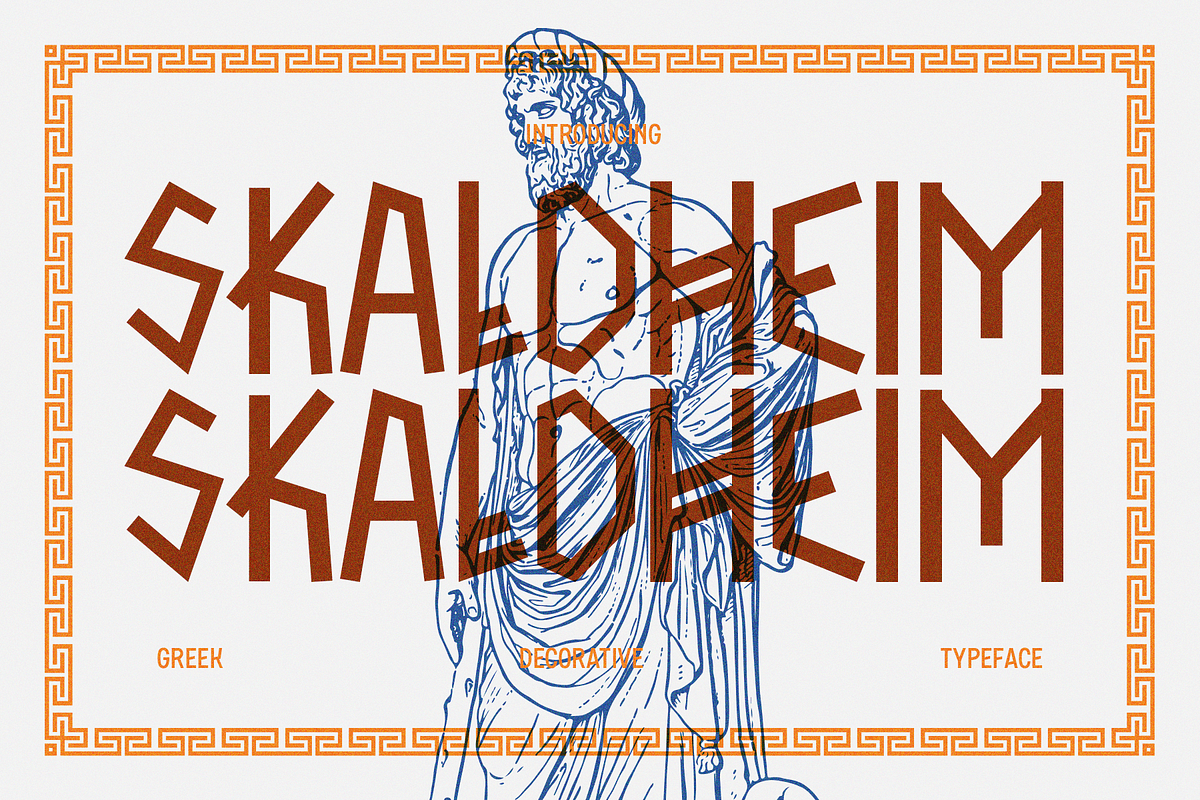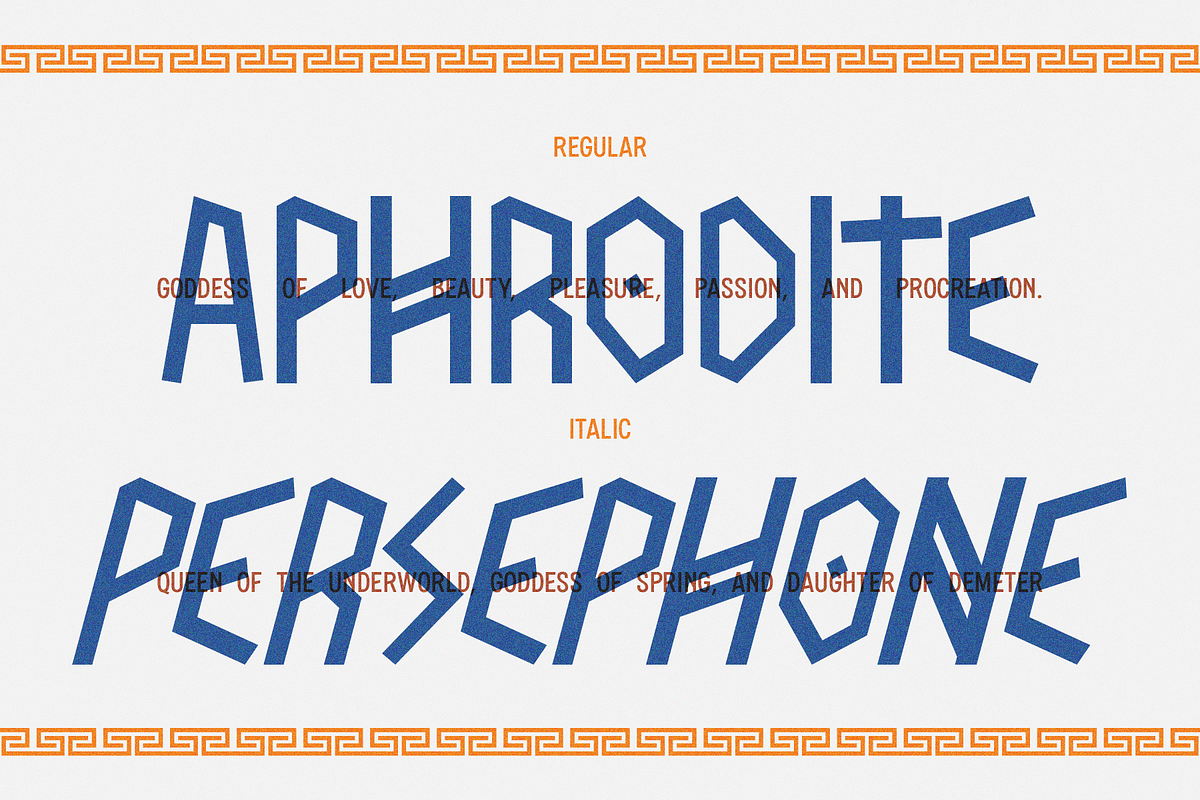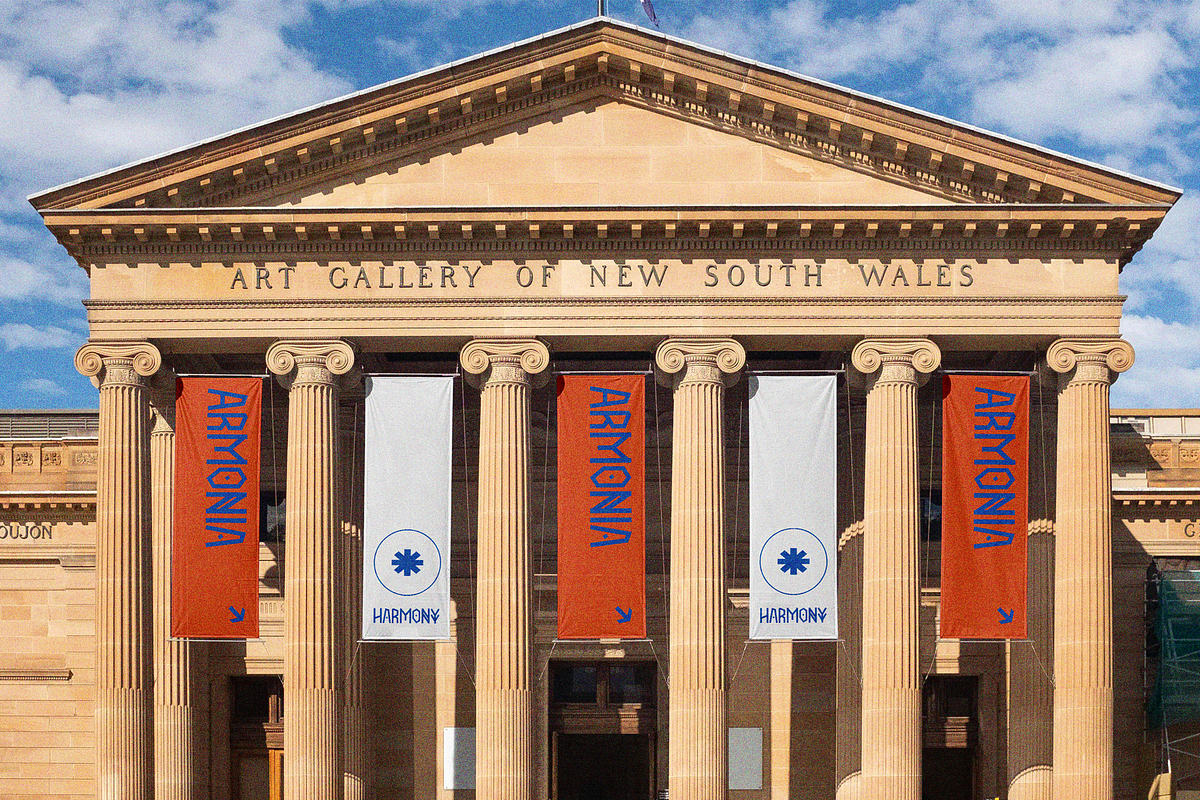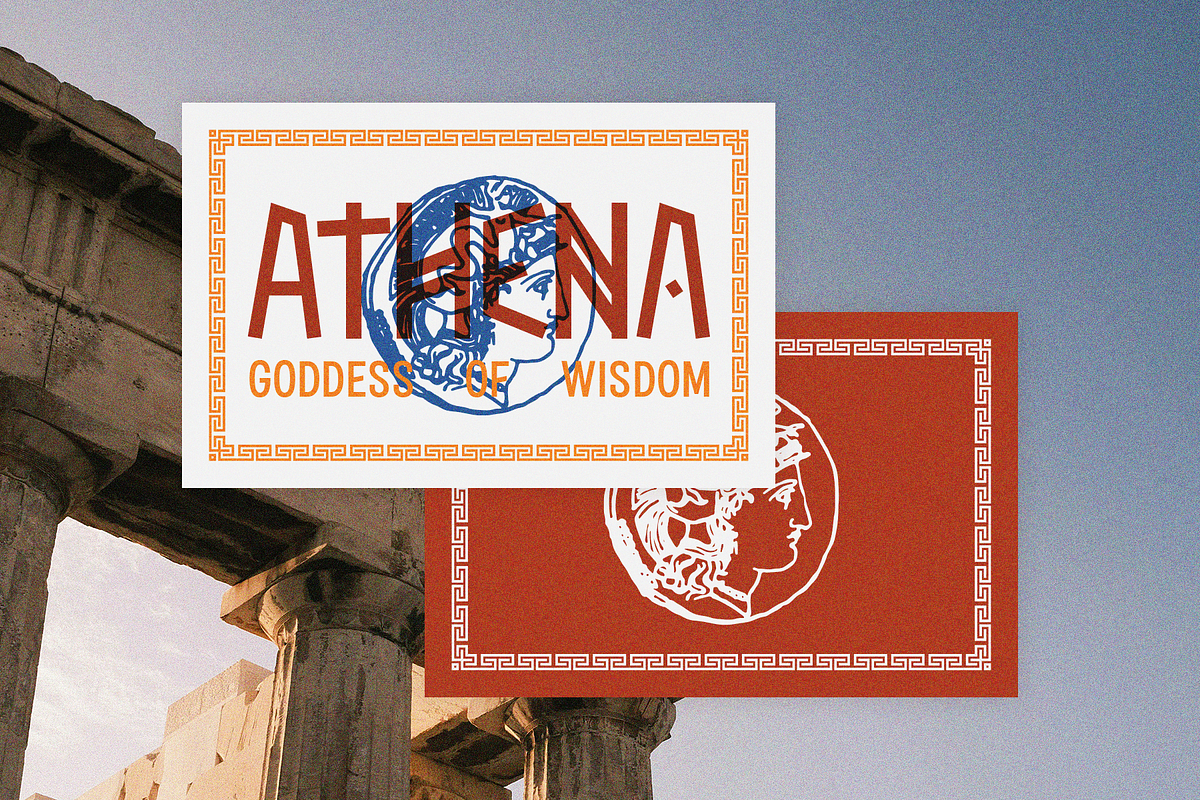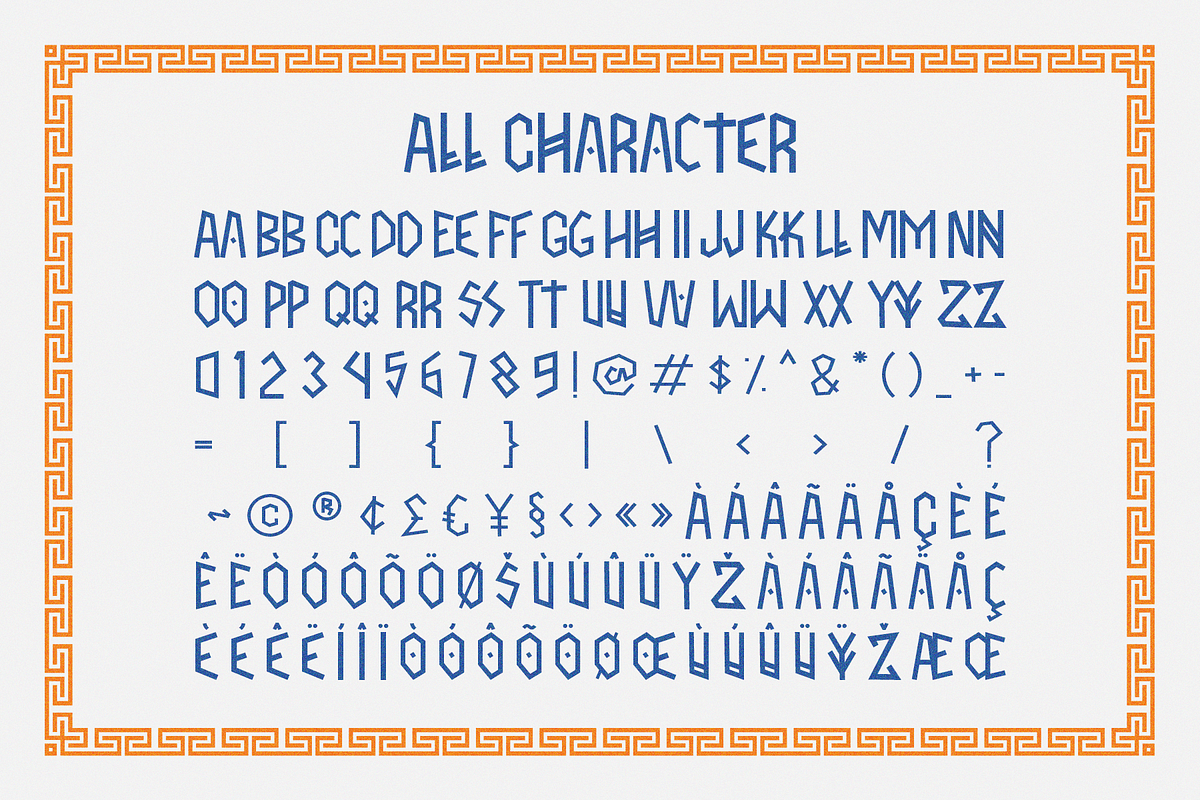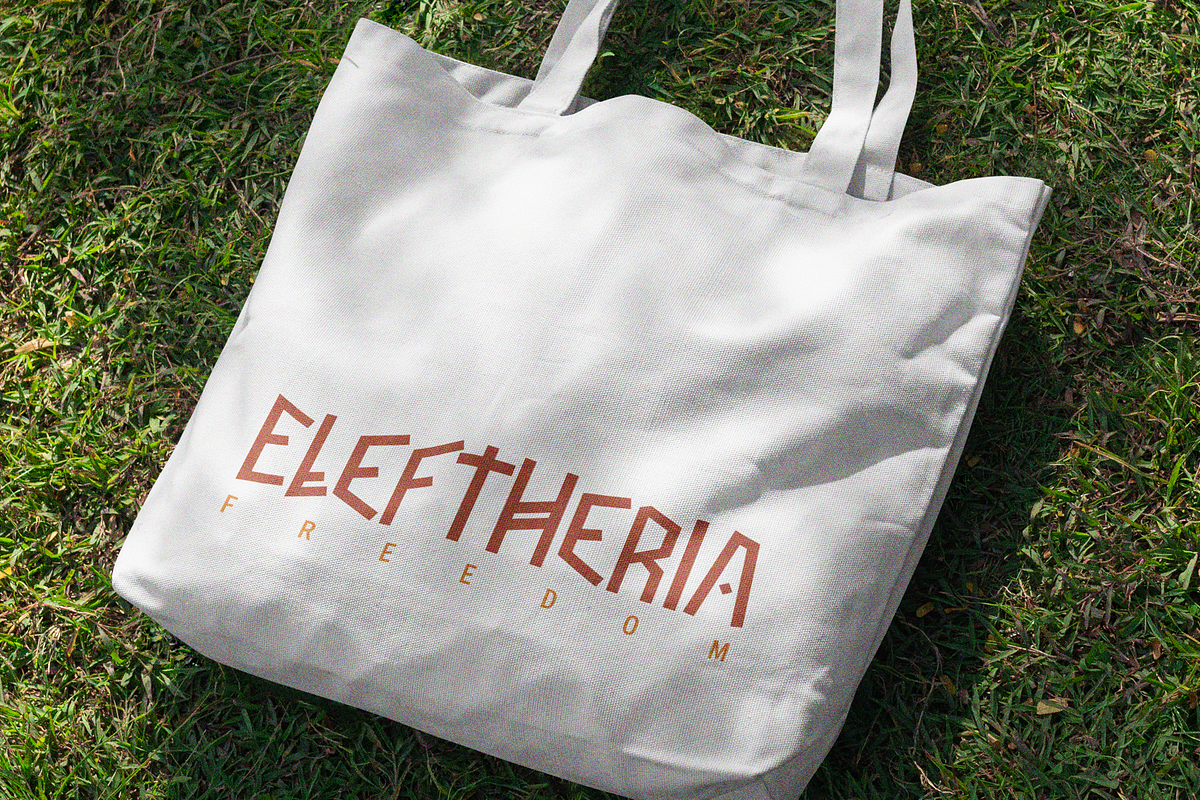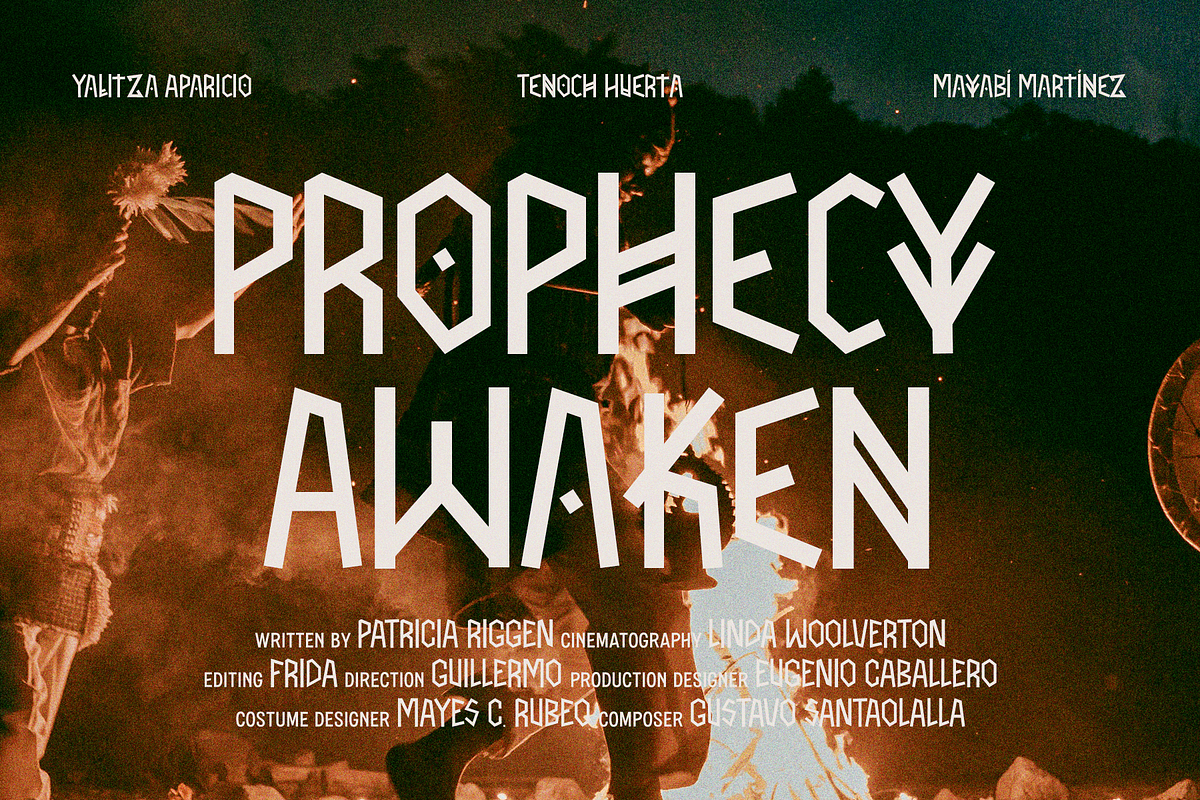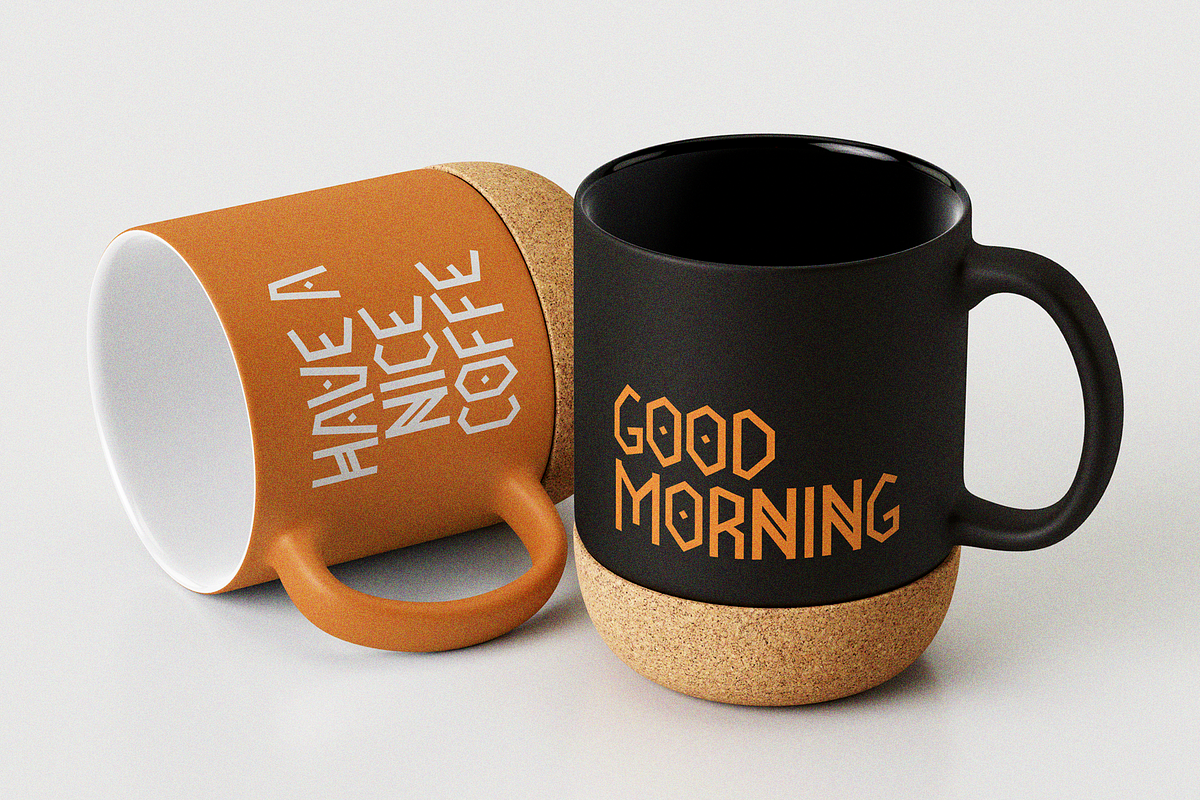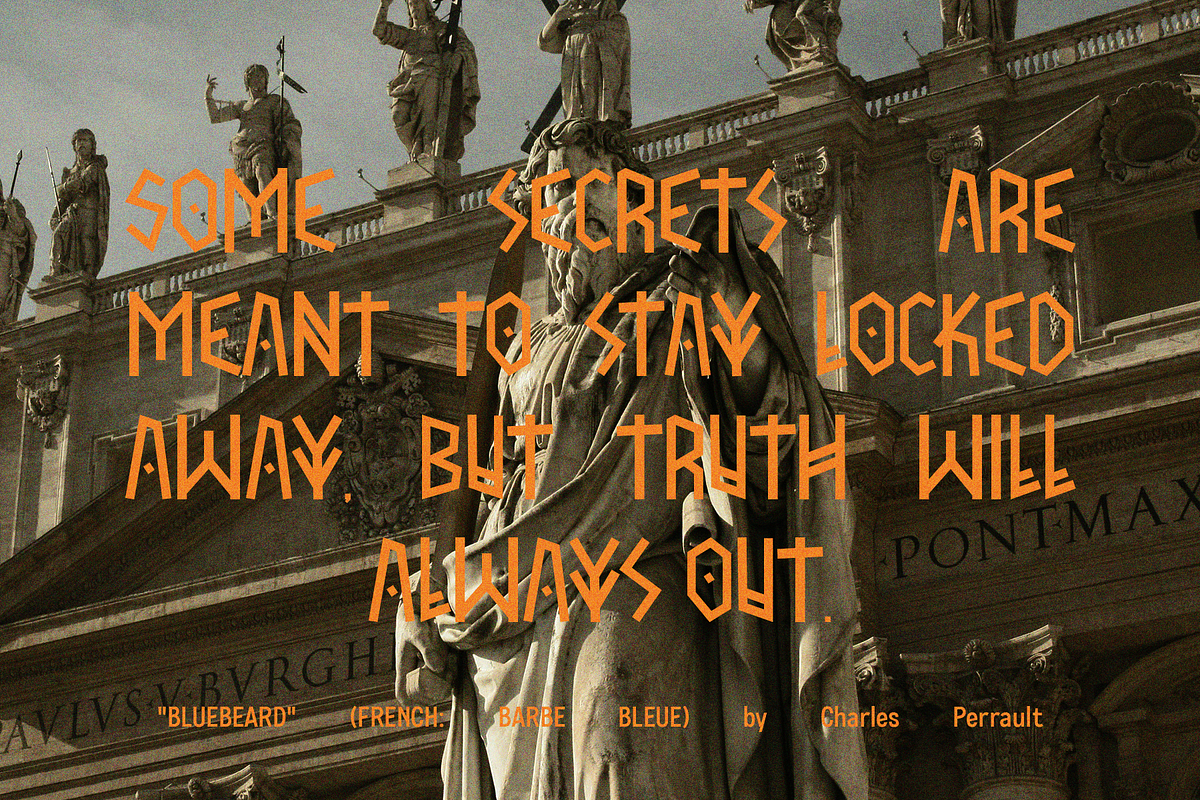
Skaldheim - Greek Display Typeface
Skaldheim is a bold decorative typeface inspired by the timeless elegance and strength of ancient Greek inscriptions. Drawing influence from classical letterforms and geometric construction, it fuses historical authenticity with a modern design edge. The sharp angles, unconventional rhythm, and sculptural presence make Skaldheim perfect for projects that demand both cultural depth and striking visual impact.
This font was designed to evoke the atmosphere of mythology, history, and heroic storytelling. Whether applied in editorial design, branding, event posters, or packaging, Skaldheim delivers a distinctive voice that bridges the gap between past and present. Its decorative nature makes it stand out in titles, logos, and large-scale typography, while still retaining a legible structure.
Skaldheim is more than just a font — it is a tribute to the artistry of ancient civilization, reimagined for today’s designers. With its unique stylistic flair and monumental presence, it is the ideal typeface for anyone looking to bring an aura of mythic strength and cultural resonance to their work.